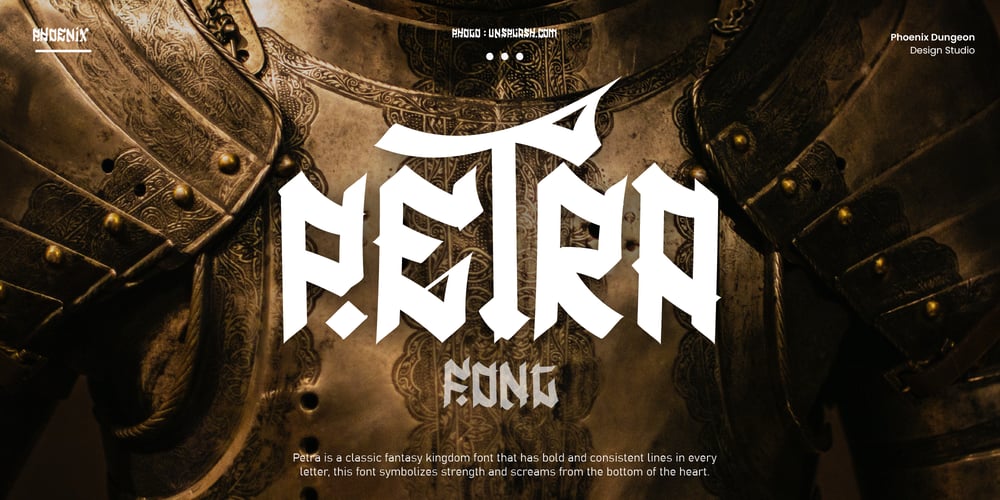
Petra Font Family was designed by Alif Naufal Muzakki and published by Phoenix Group. Petra contains 1 styles and family package options. Petra is a classic fantasy kingdom font that has bold and consistent lines in every letter, this font symbolizes strength and screams from the bottom of the heart.